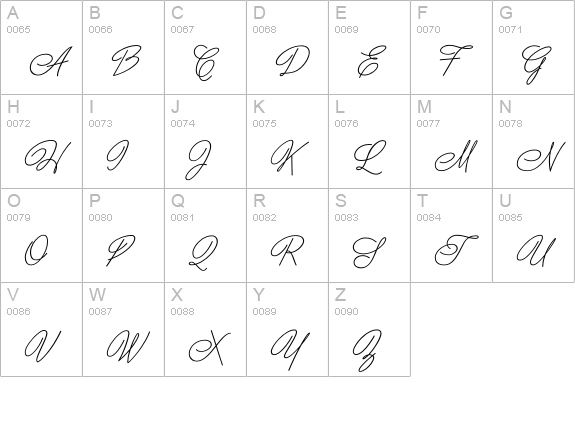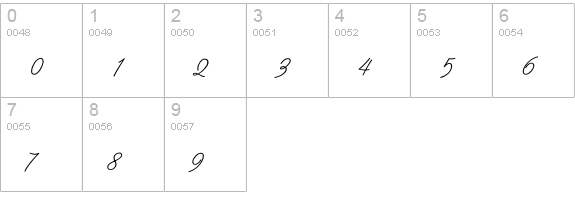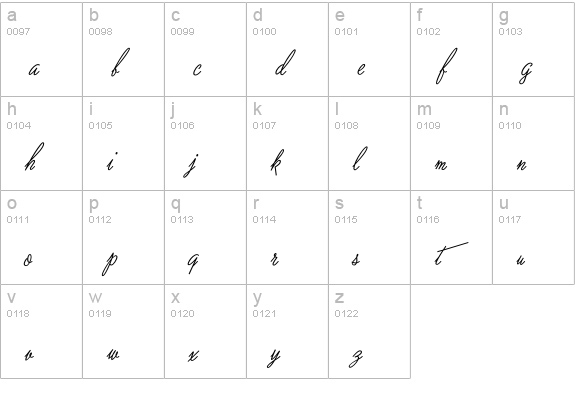
Introducing ScriptaBookPro, a beautifully crafted font designed to add elegance and sophistication to your projects. This versatile typeface features delicate and flowing script characters that exude a sense of refinement and charm. Perfect for invitations, greeting cards, branding, and more, ScriptaBookPro effortlessly conveys a sense of style and grace. What sets ScriptaBookPro apart is not only its stunning aesthetics but also its accessibility. This exceptional font is available for free download at FontsMarket.com, allowing you to elevate your designs without breaking the bank. Whether you're a seasoned designer or just starting out, ScriptaBookPro is a must-have addition to your font collection. With its timeless appeal and seamless legibility, ScriptaBookPro is sure to become a go-to choice for all your creative endeavors. Download it today and infuse your projects with a touch of sophistication that will leave a lasting impression.